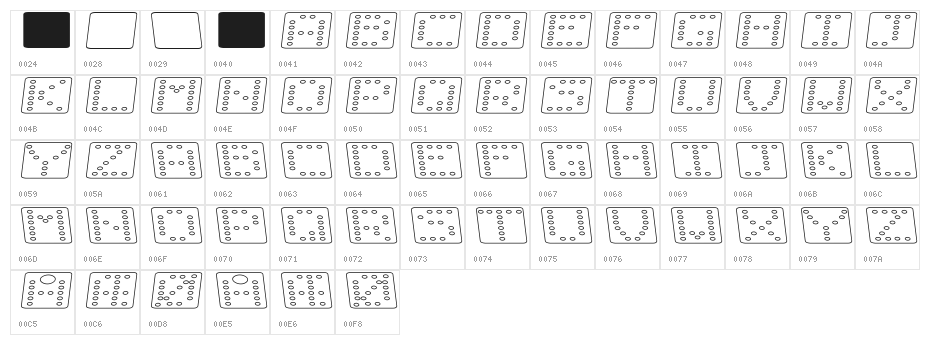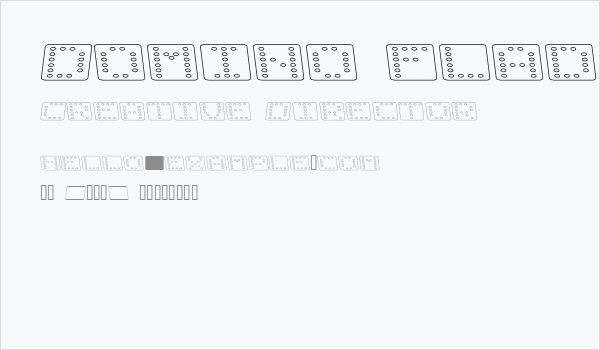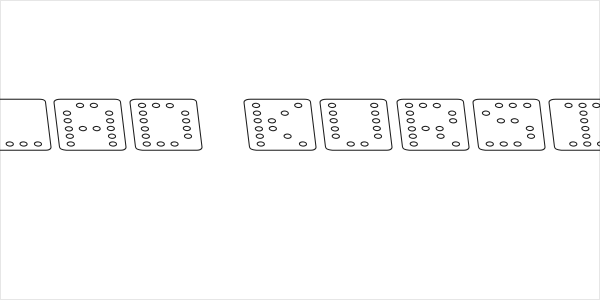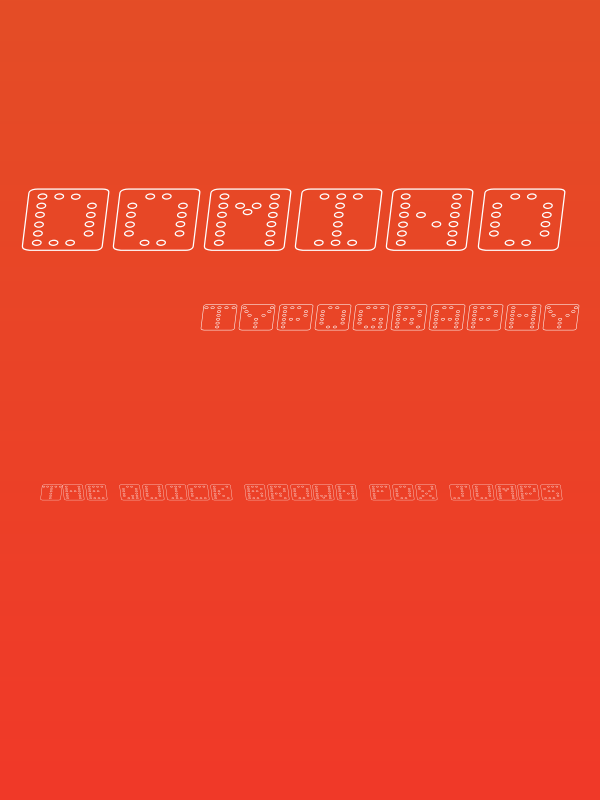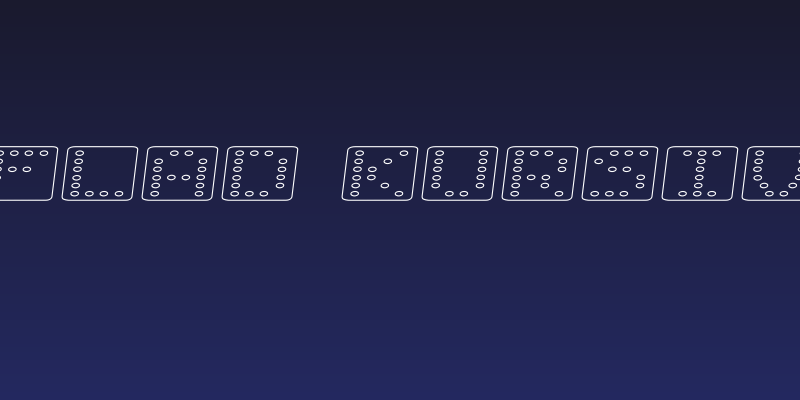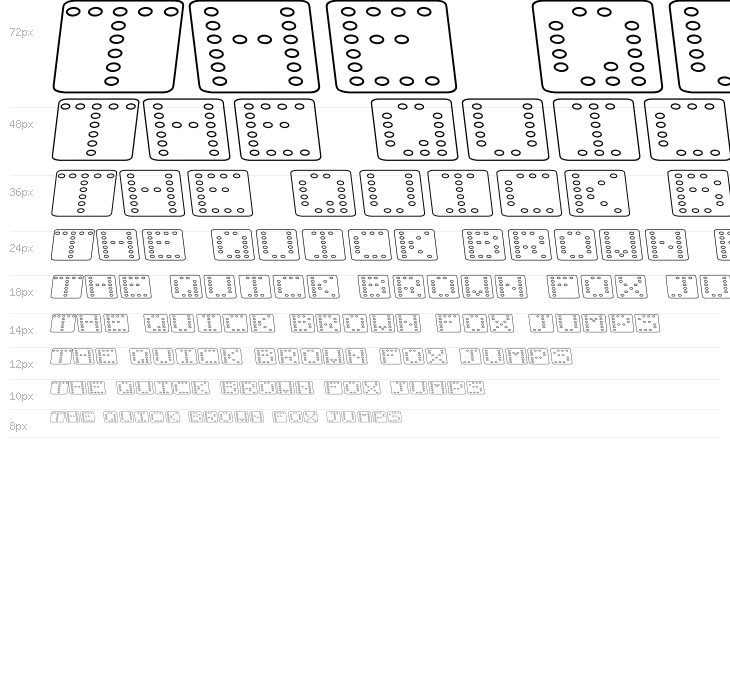
Domino flad kursiv omrids Font
Domino flad kursiv omrids Description
This font features characters designed to resemble domino tiles, each letter and number crafted with a rectangular outline and filled with dots that mimic the pips on a domino. The style is playful and unique, with a consistent slant that adds a dynamic, italicized effect. The characters are outlined, giving them a hollow appearance, which enhances their decorative quality. The font includes both uppercase and lowercase letters, numbers, and a selection of special characters. The design is consistent across all characters, maintaining a uniform look that is both cohesive and visually engaging.
| Proposed Projects | Ideal for game-themed designs, playful invitations, educational materials, and creative branding projects. |